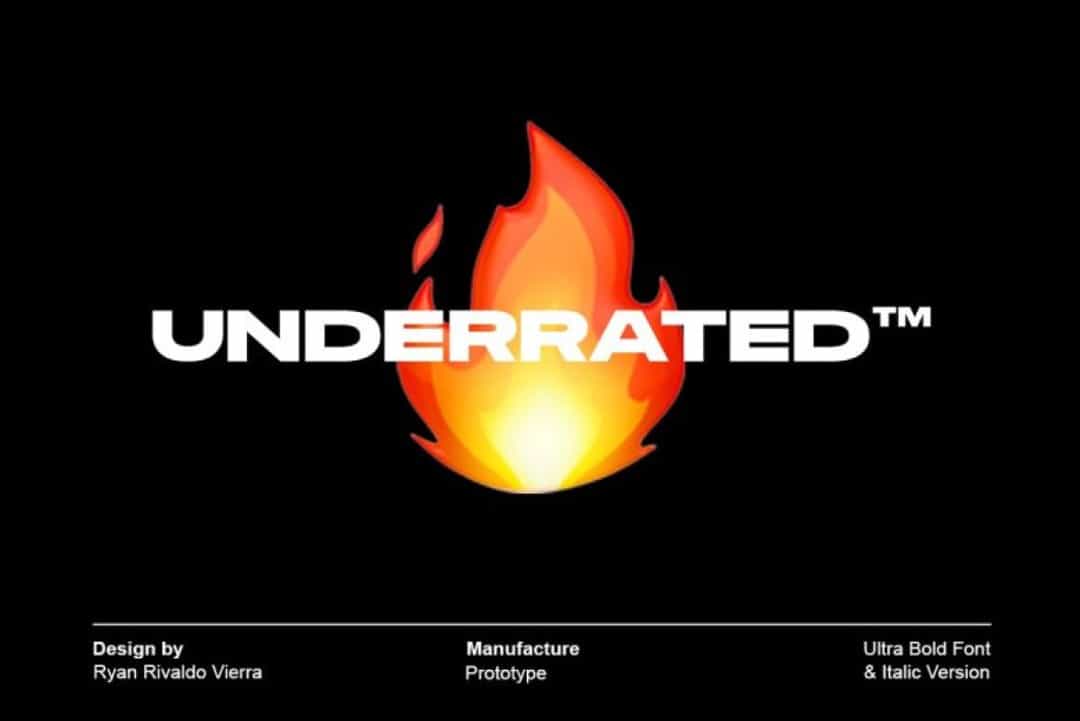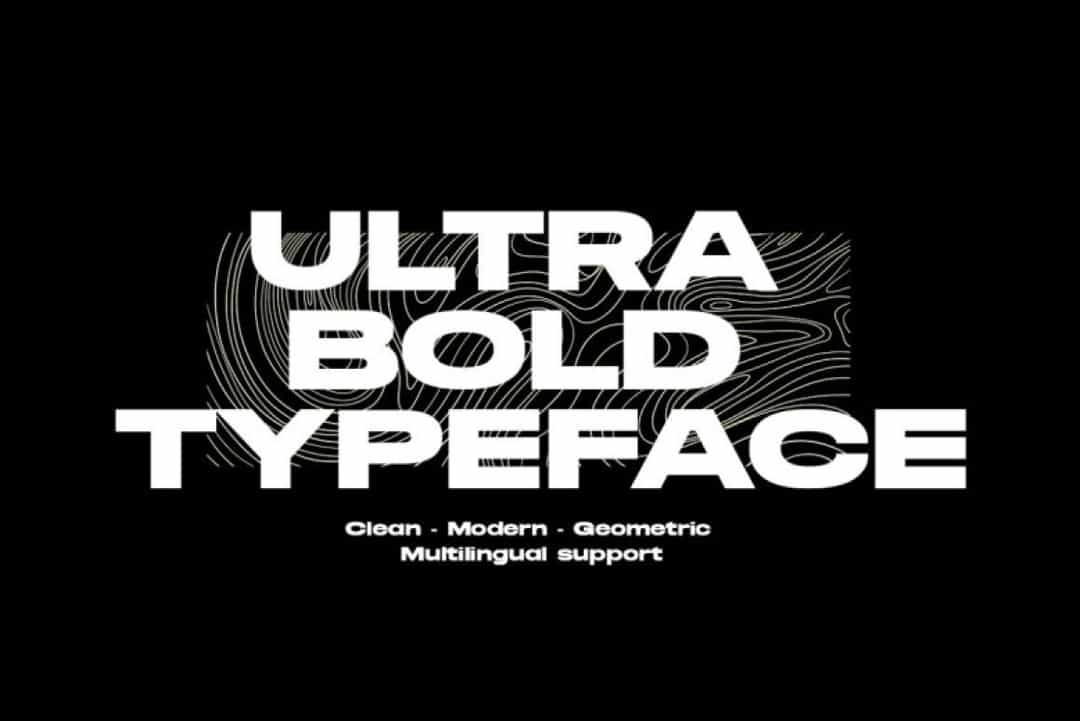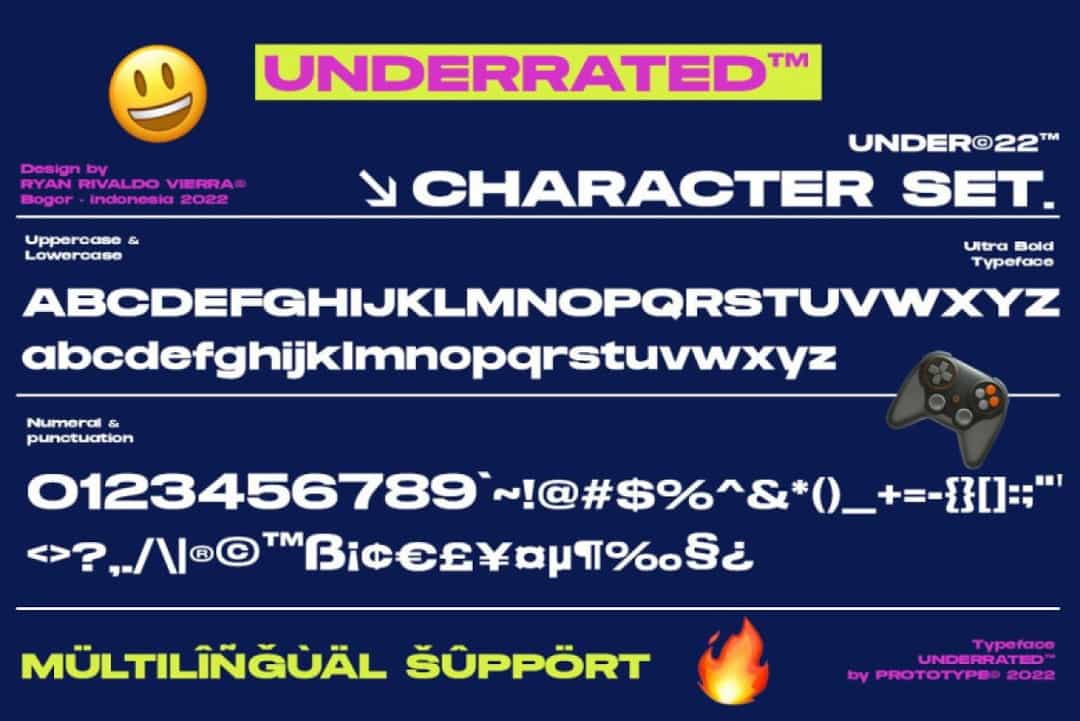
Underrated Font is an eye-catching nostalgia sans serif display with clean lines that makes it ideal for headlines font. Elegant font featuring crisp forms as well as precise kerning that looks beautiful in logos, magazines and films; an underrated font ideal for headlines, branding captions, paragraphs or posters.